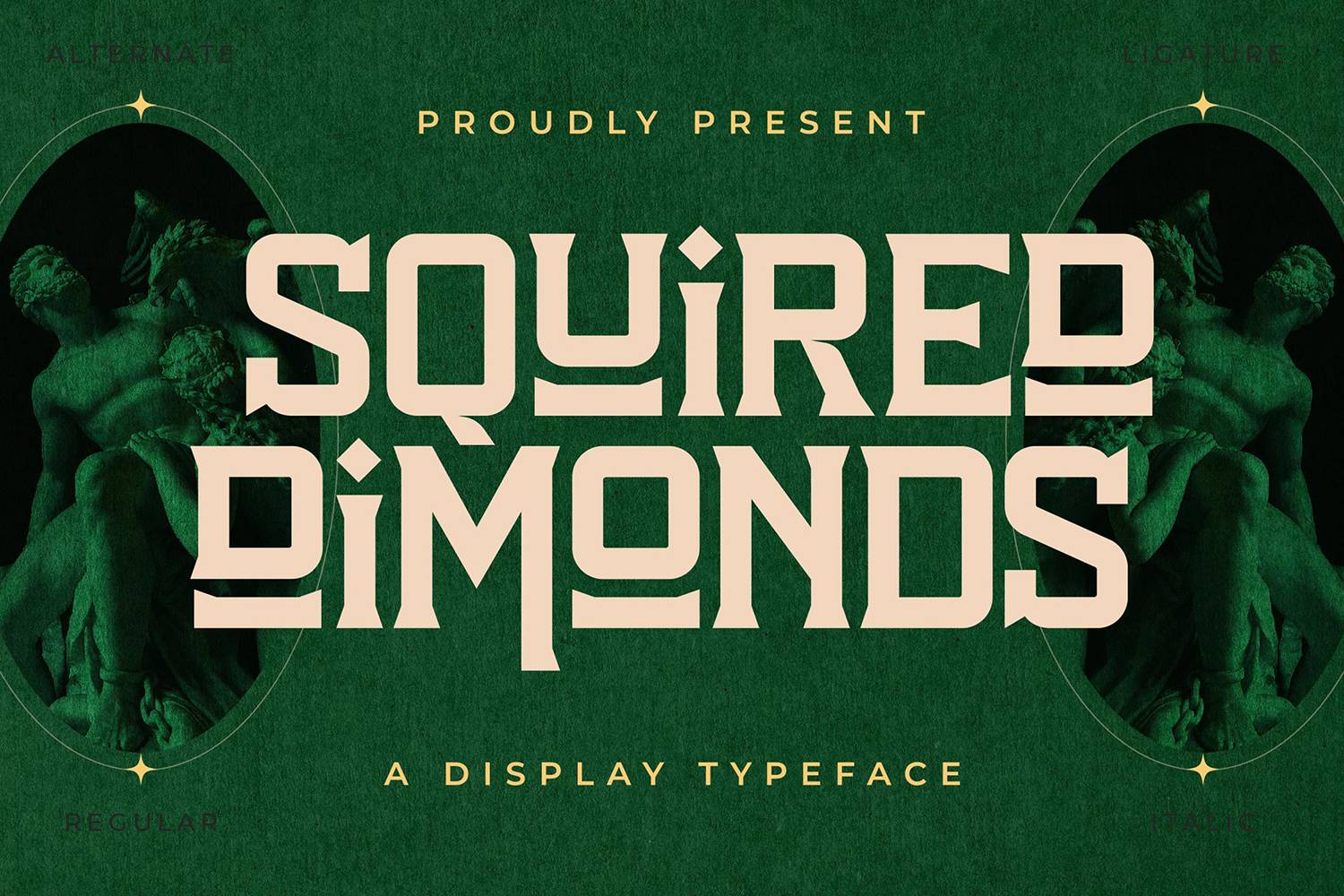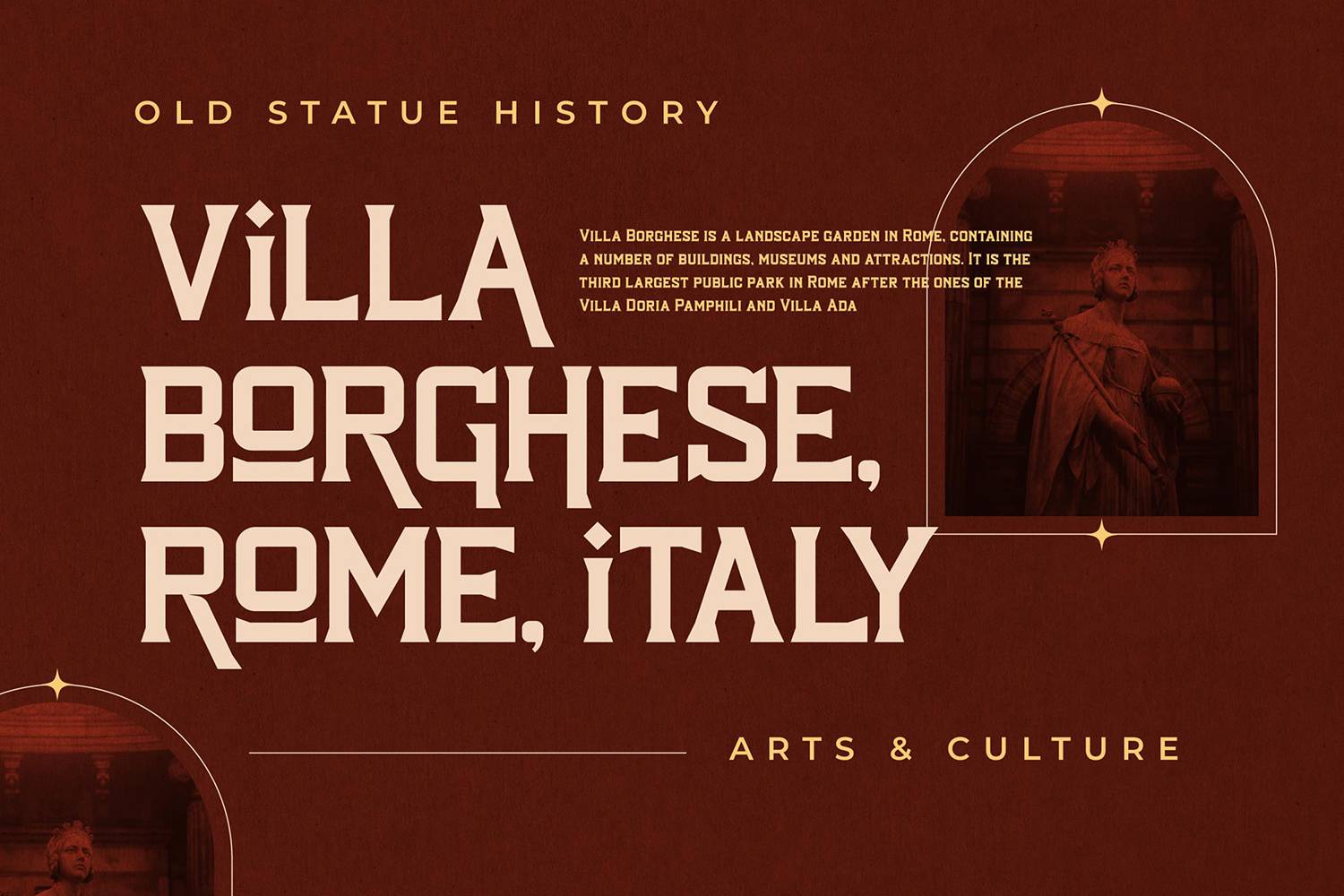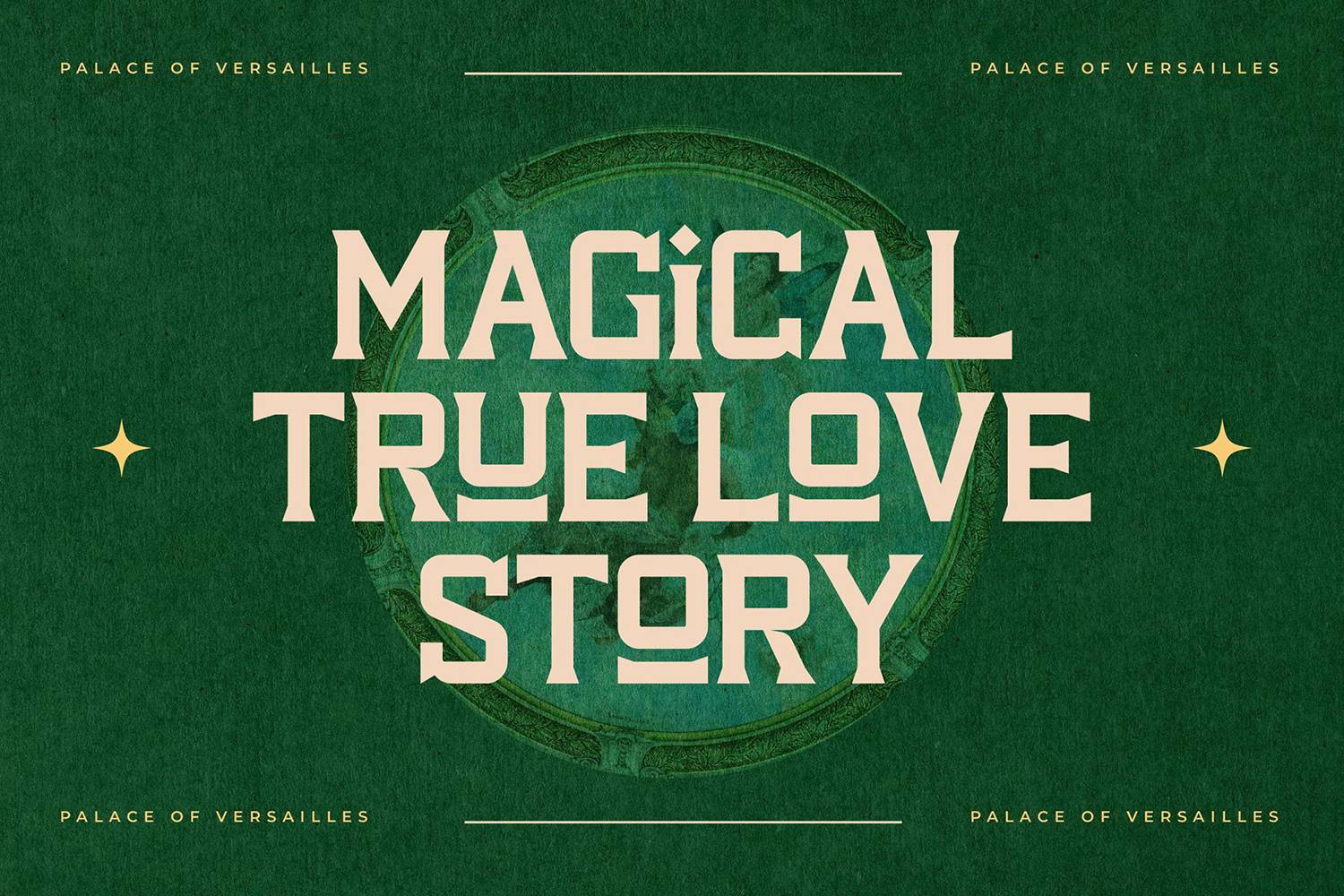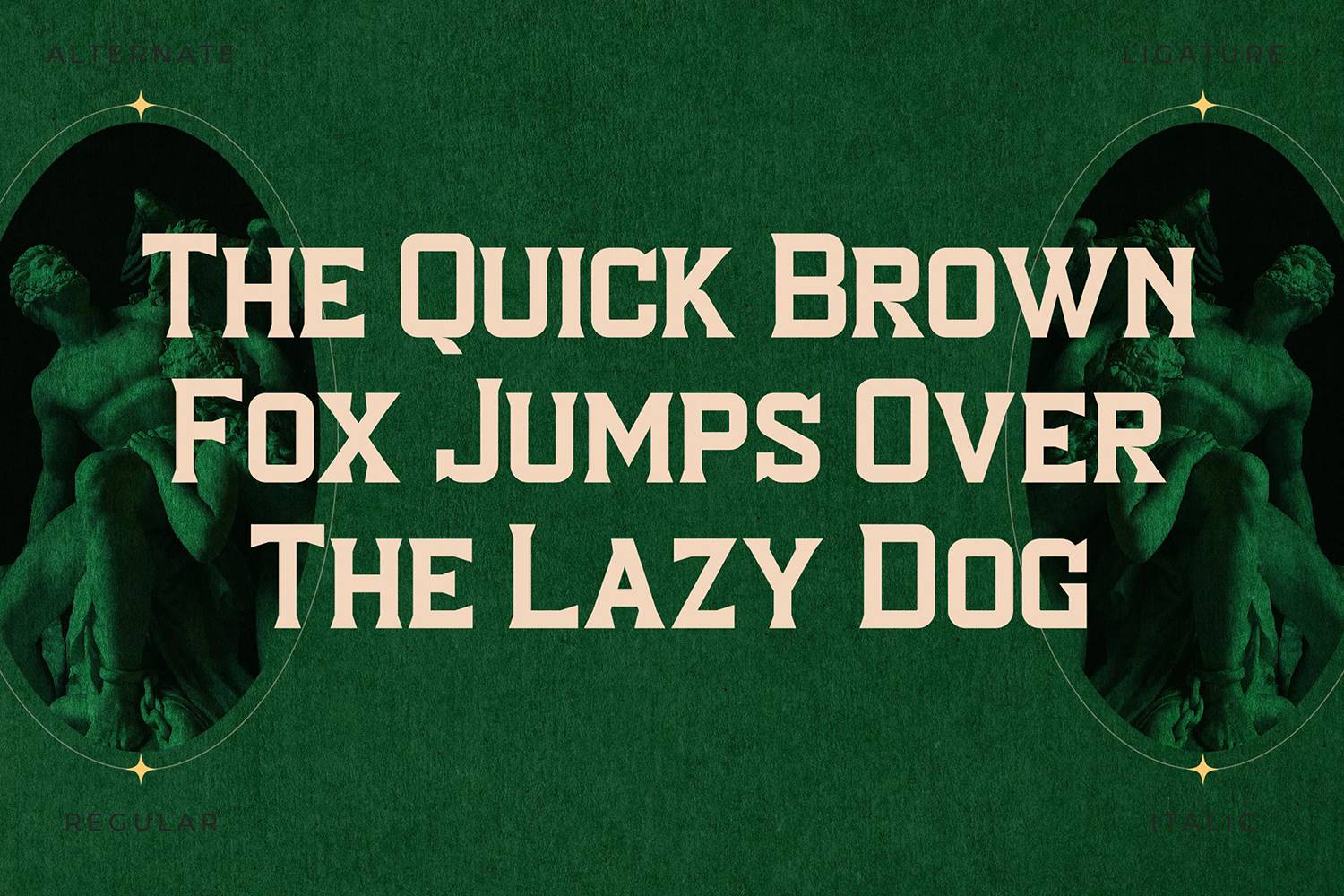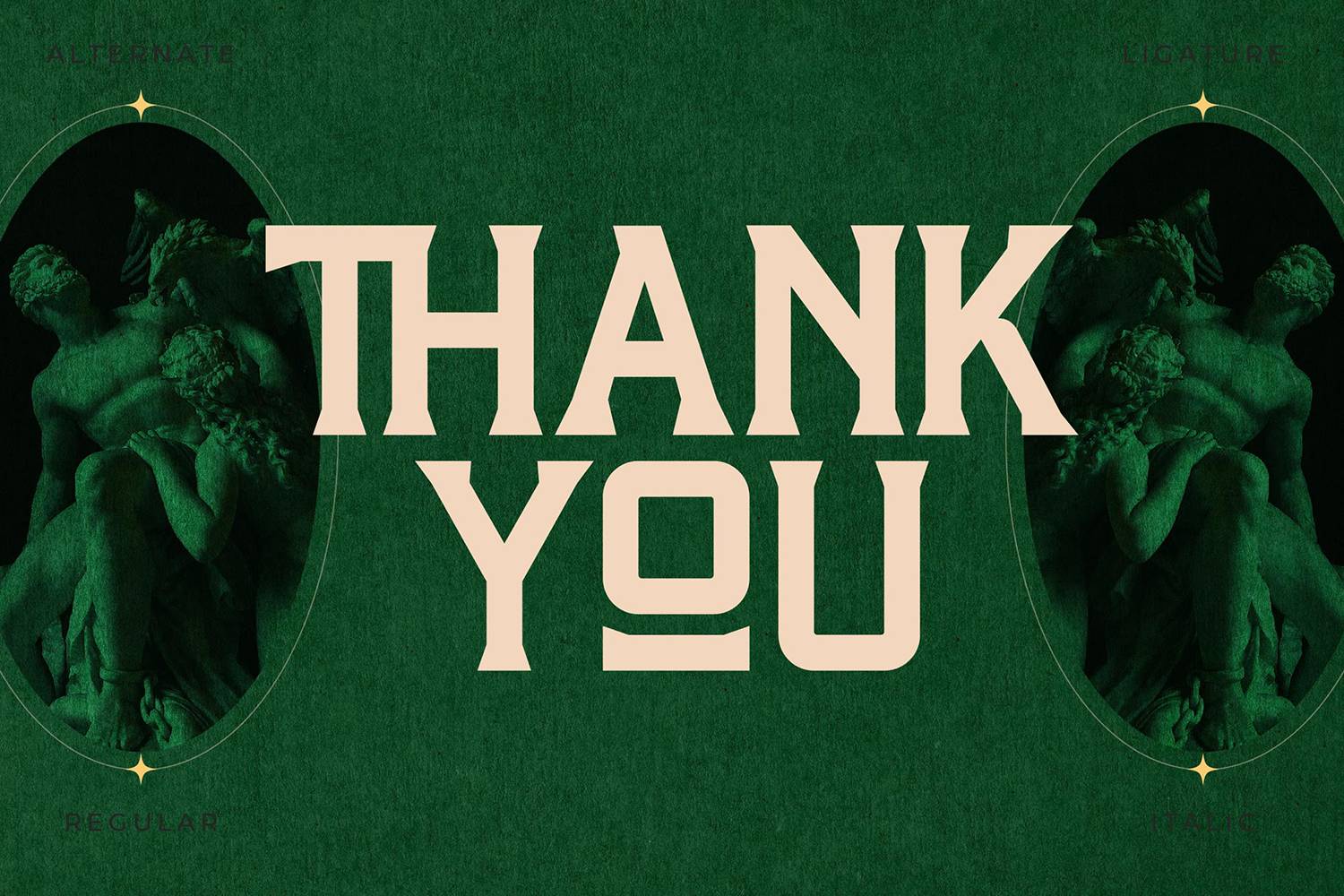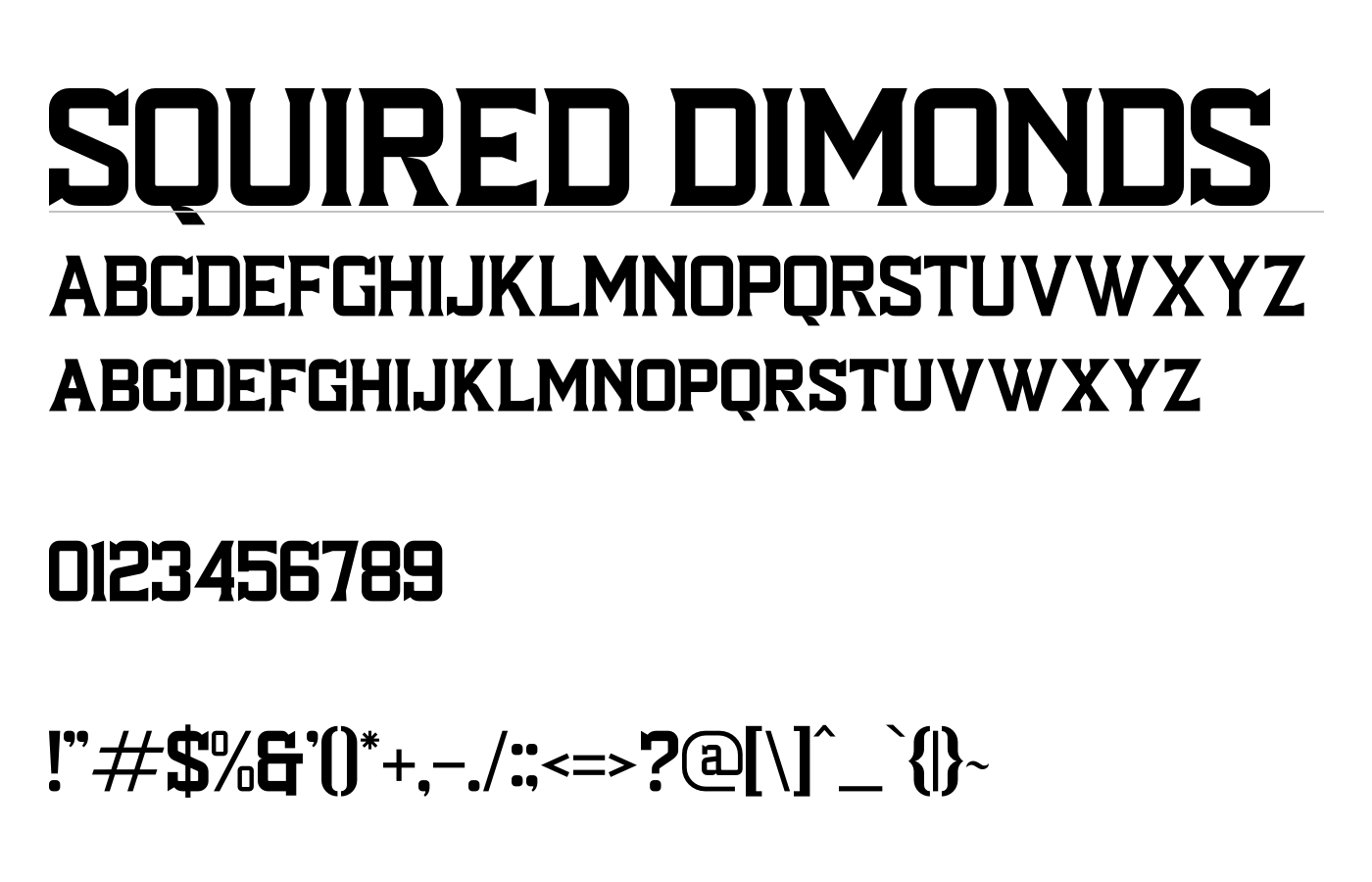
Squired Dimonds is a bold, condensed sans serif font with a strong geometric influence and sharp, distinctive cuts that give it a modern yet slightly vintage industrial feel. Its tall x-height and tight spacing make it ideal for impactful headlines and branding where a commanding presence is needed. This font works well for logos, posters, and packaging that seek to convey strength, precision, and a bold personality.
Squired Dimonds Font
About Squired Dimonds Font